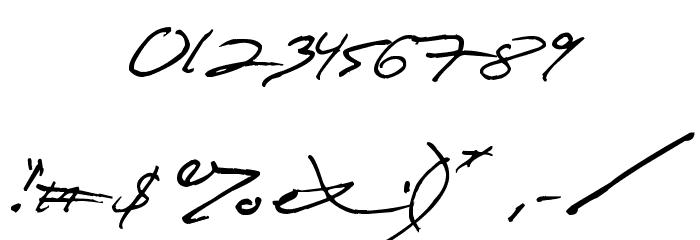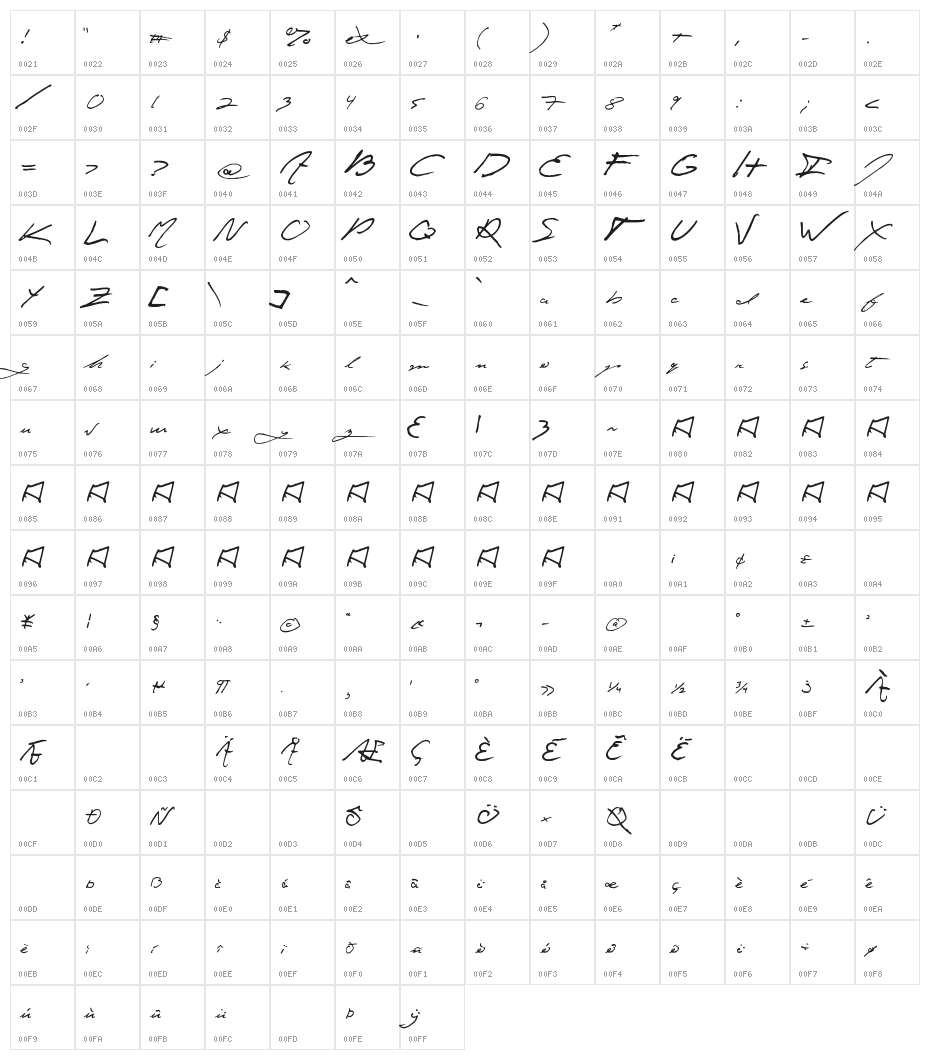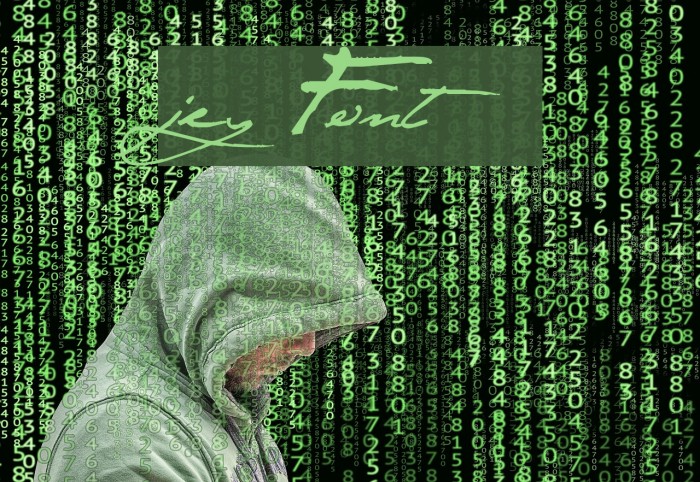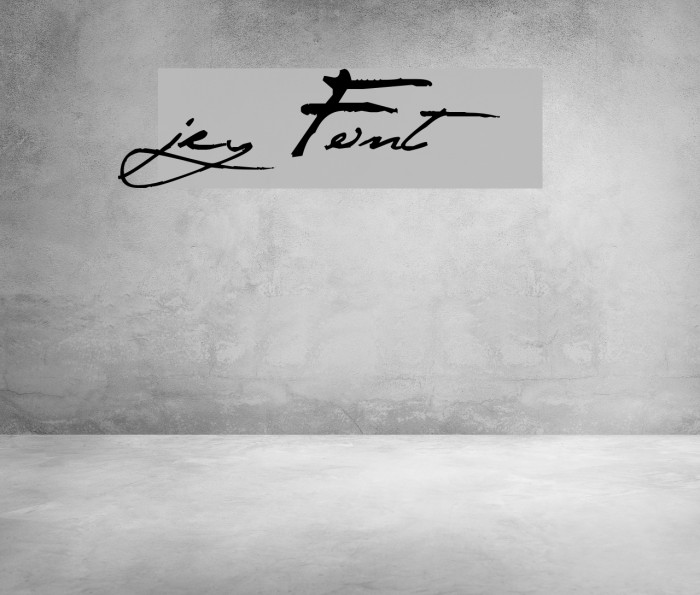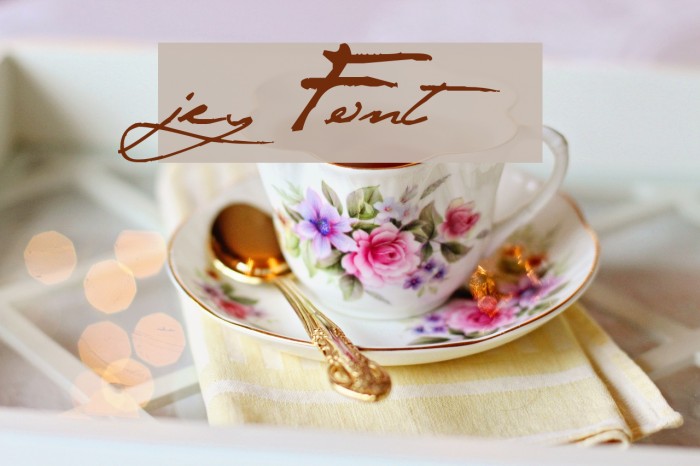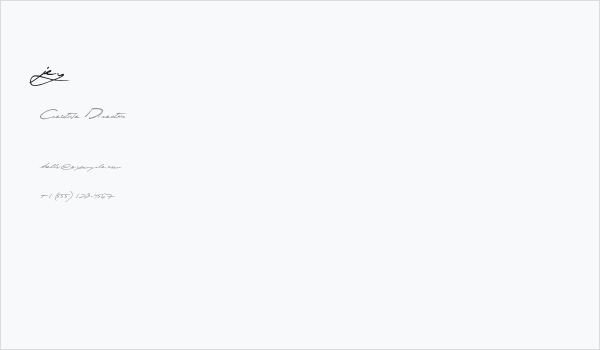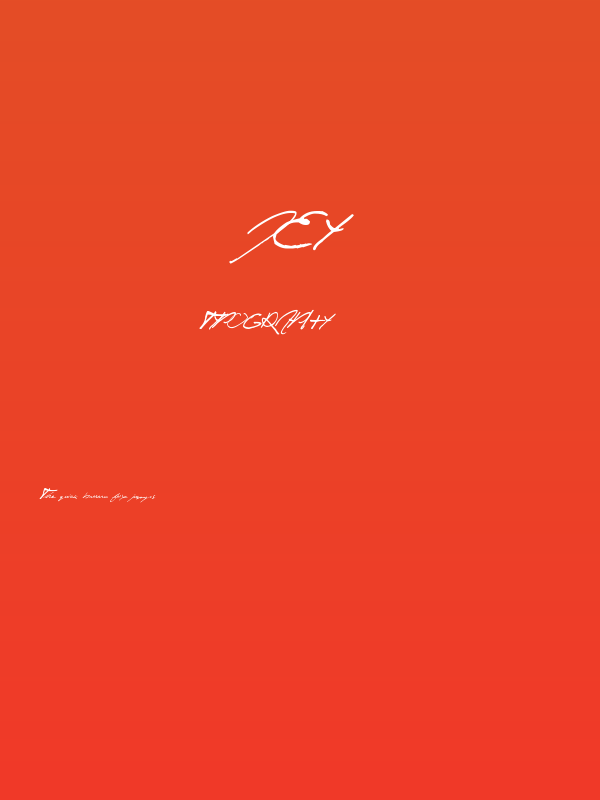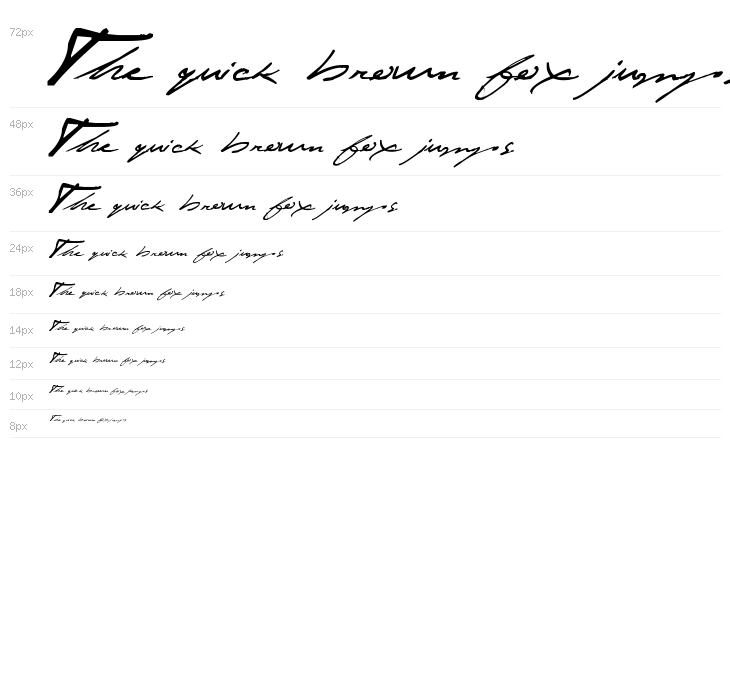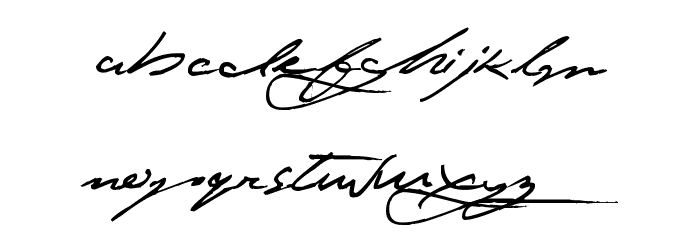
jey Font
jey Description
This font exudes a dynamic and expressive style, characterized by its fluid, cursive script that mimics the natural flow of handwriting. The letters are interconnected with sweeping, elegant strokes that vary in thickness, creating a sense of movement and energy. This script is highly decorative, with a distinctive flair that makes it stand out. The uppercase letters are bold and dramatic, while the lowercase letters maintain a graceful continuity. Numbers and special characters are equally stylized, maintaining the overall aesthetic. The font's artistic nature makes it suitable for creative and personal projects where a touch of individuality is desired.